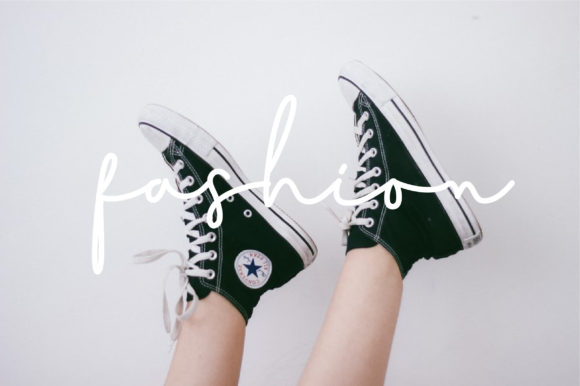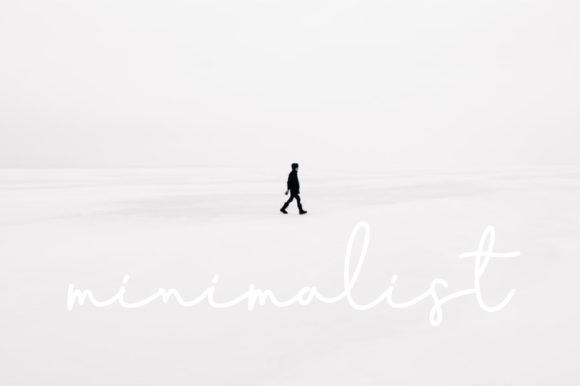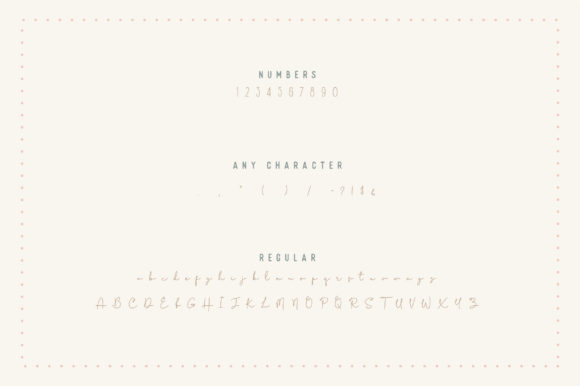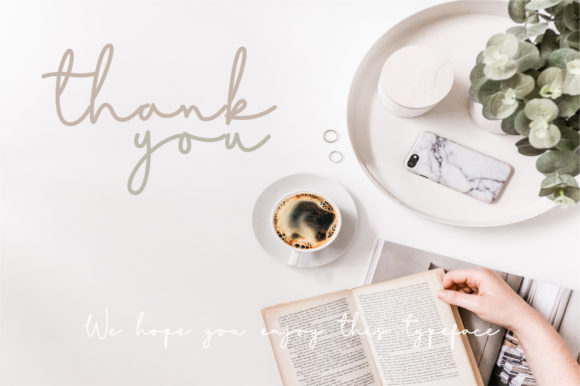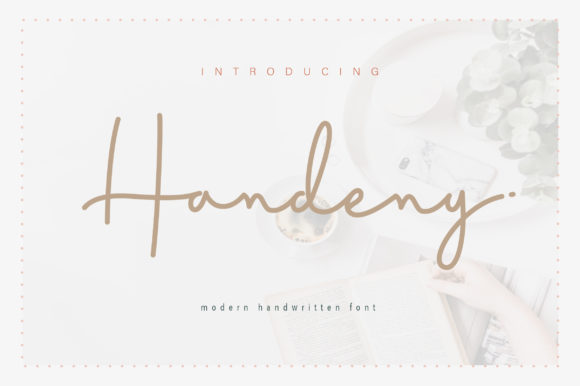
Introducing Handeny Font: The Elegant and Charming Choice for Designers and Crafters
In the world of typography, fonts play a crucial role in conveying the tone and personality of a design. For designers and crafters looking for a font that exudes elegance and charm, Handeny Font is an excellent choice. This beautiful handwritten font is perfect for adding a personal touch to various designs, from wedding invitations to business cards.
The Charm of Handeny Font
Handeny Font feels equally charming and elegant, making it an ideal choice for designs that require a sophisticated and refined look. Its elegant strokes and beautiful lettering make it perfect for creating stunning designs that capture the attention of the audience. Whether you’re designing wedding invitations, thank you cards, or greeting cards, Handeny Font is sure to impress.
Versatility of Handeny Font
One of the best things about Handeny Font is its versatility. It can be used in a variety of designs, including:
• Wedding invitations: Add a touch of elegance to your wedding invitations with Handeny Font.
• Thank you cards: Express your gratitude with beautifully designed thank you cards featuring Handeny Font.
• Quotes: Create stunning quote designs that showcase the beauty of Handeny Font.
• Greeting cards: Design beautiful greeting cards for special occasions, such as birthdays, anniversaries, and holidays.
• Logos: Use Handeny Font to create elegant and sophisticated logos for your business or brand.
• Business cards: Add a personal touch to your business cards with Handeny Font.
Why Choose Handeny Font?
So, why choose Handeny Font for your design projects? Here are a few reasons:
• Elegant and charming: Handeny Font has an elegant and charming feel that makes it perfect for designs that require a sophisticated look.
• Handwritten touch: Handeny Font adds a handwritten touch to your designs, making them more personal and unique.
• Versatile: Handeny Font can be used in a variety of designs, from wedding invitations to business cards.
• Easy to read: Despite its elegant and cursive nature, Handeny Font is easy to read, making it perfect for designs that require a clear and legible font.
Tips for Using Handeny Font
Here are a few tips for using Handeny Font in your design projects:
• Use it sparingly: While Handeny Font is beautiful, it’s best to use it sparingly to avoid overwhelming the design.
• Pair it with other fonts: Experiment with pairing Handeny Font with other fonts to create a unique and interesting design.
• Adjust the size and color: Adjust the size and color of Handeny Font to fit your design and make it more visually appealing.
In conclusion, Handeny Font is a beautiful and elegant font that is perfect for designers and crafters looking to add a personal touch to their designs. Its charming and sophisticated feel makes it ideal for a variety of designs, from wedding invitations to business cards. With its versatility, ease of use, and elegant look, Handeny Font is sure to become a favorite among designers and crafters.